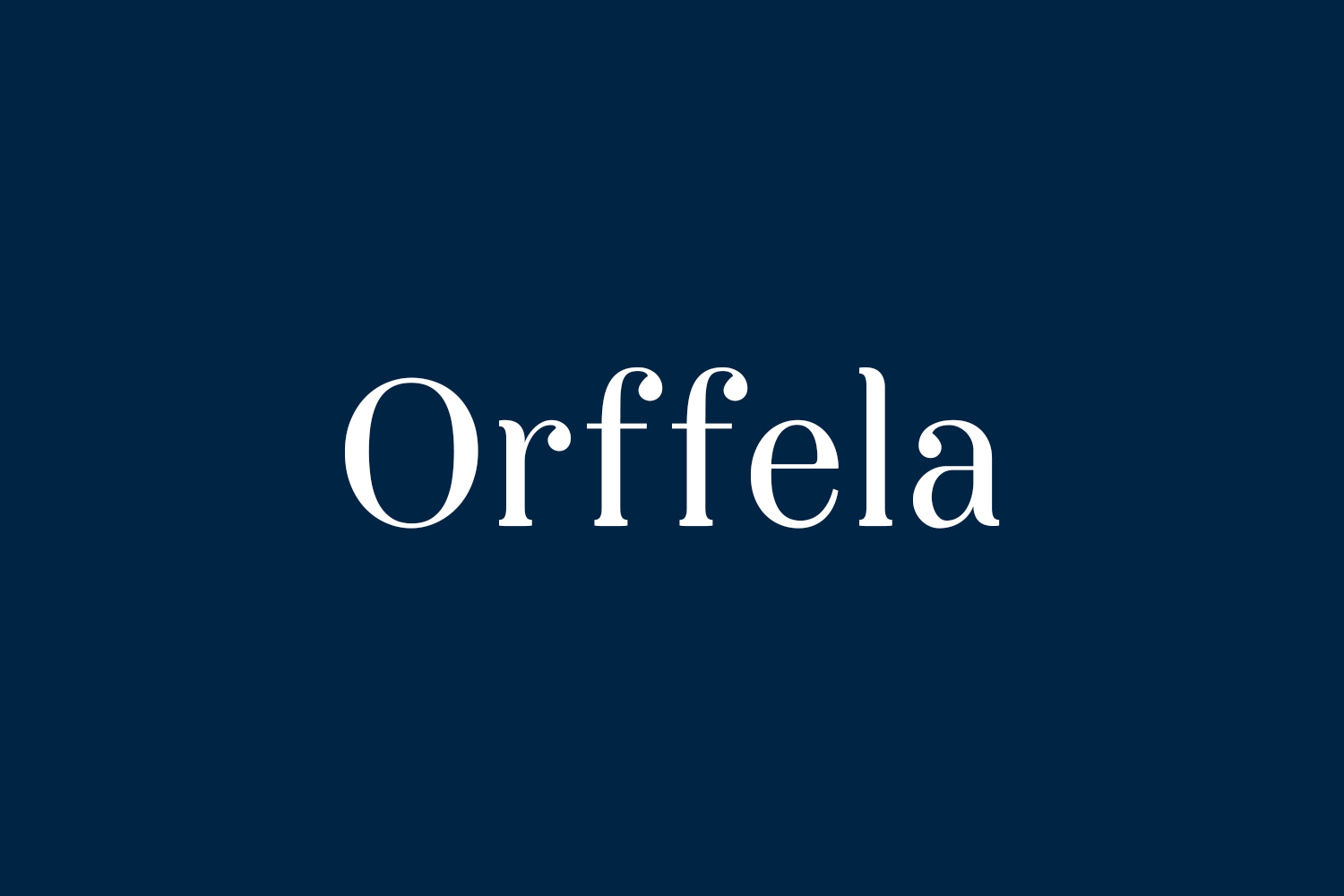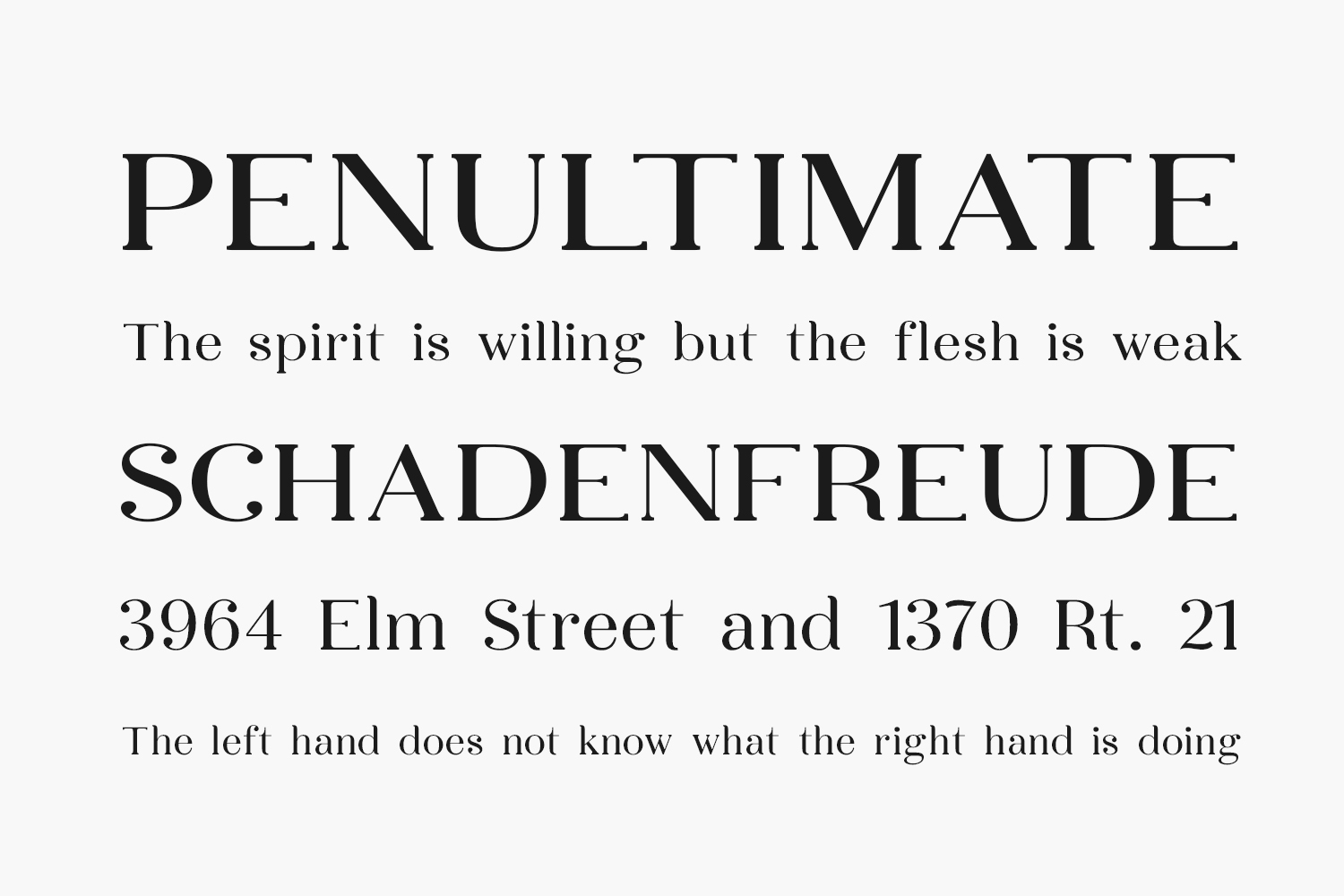
Orffela Free Font is a cool and adaptable serif font. It is suitable for book texts, documentation, business reports, business correspondence, magazines, newspapers, posters, advertisements, multimedia, and corporate design. Orffela Free Font was designed by Lerima and is free for personal use only. Please purchase the full version for commercial use.